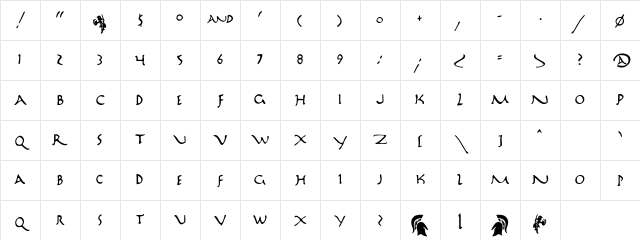
Marathon II Regular Free Font
Marathon II Regular
Design Context for Marathon II
Marathon II is a composed and adaptable typeface that performs quietly and consistently across a wide range of design contexts.